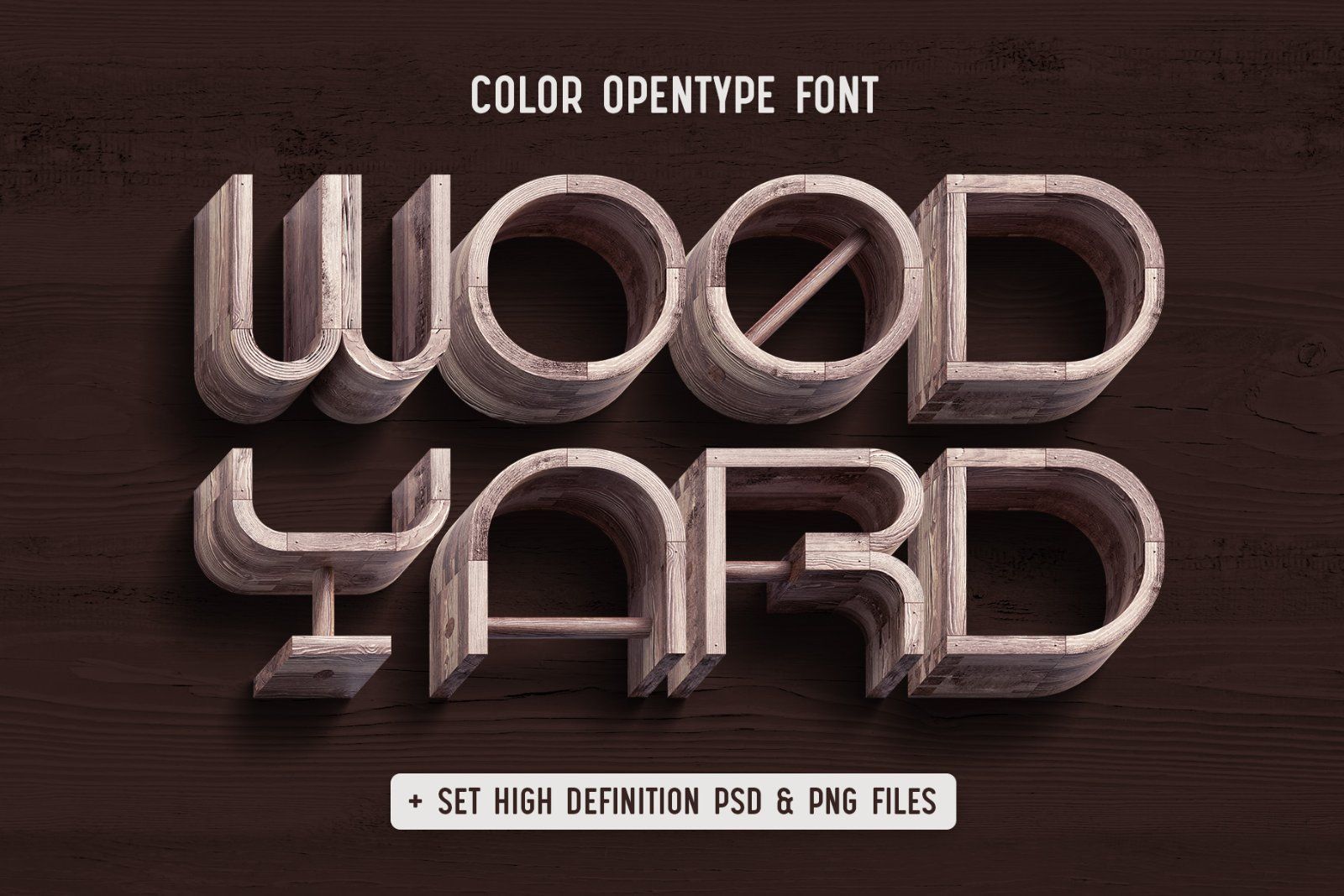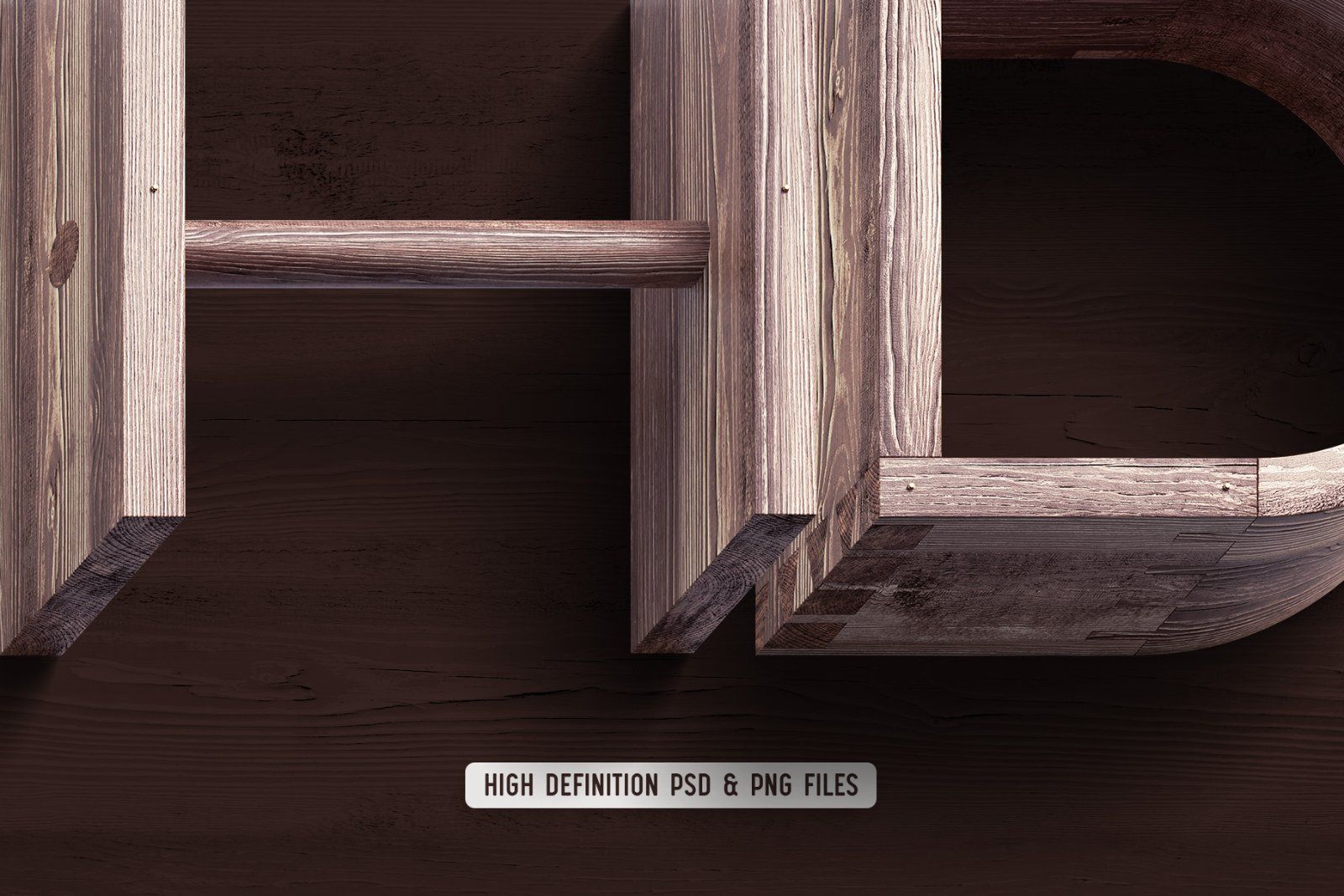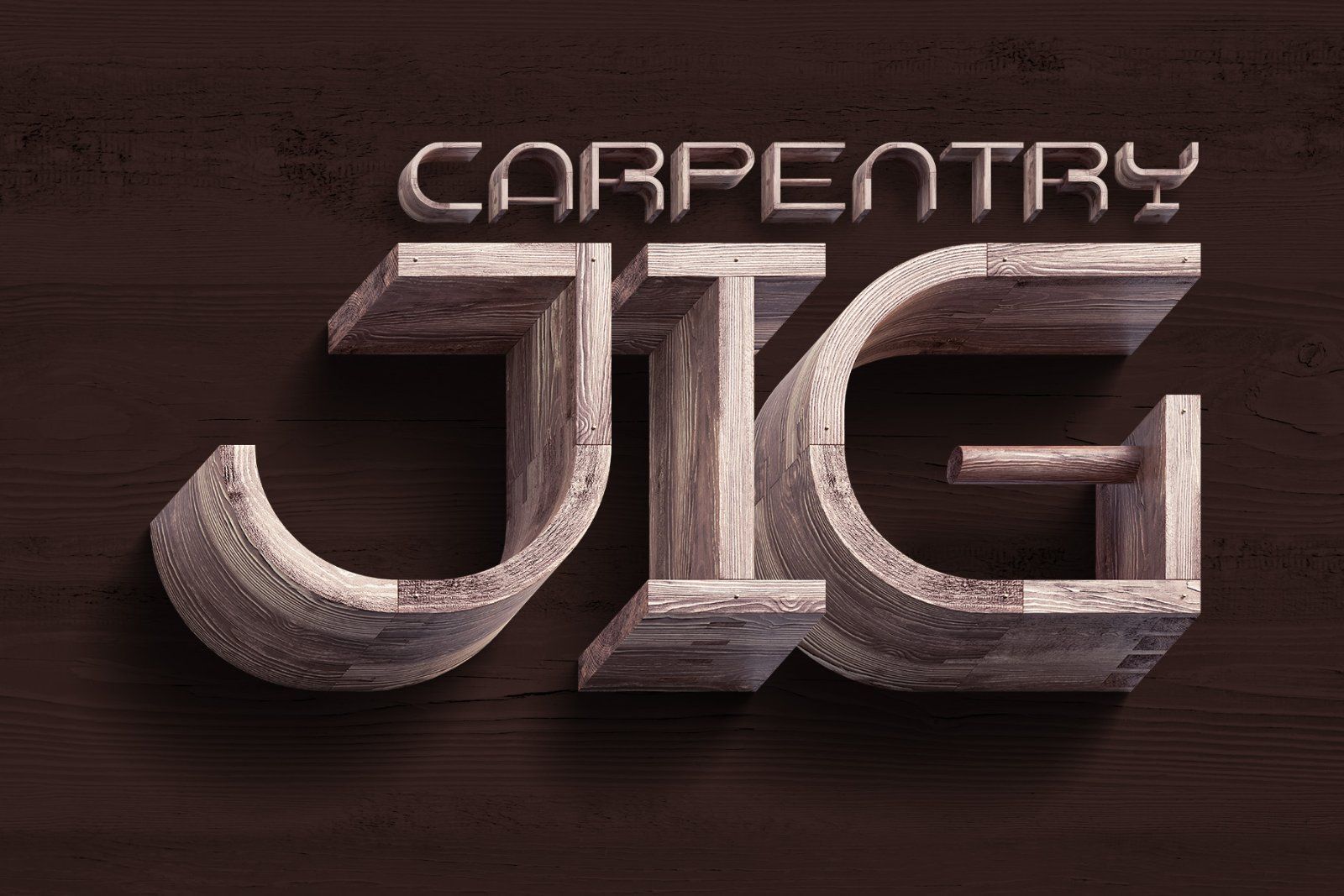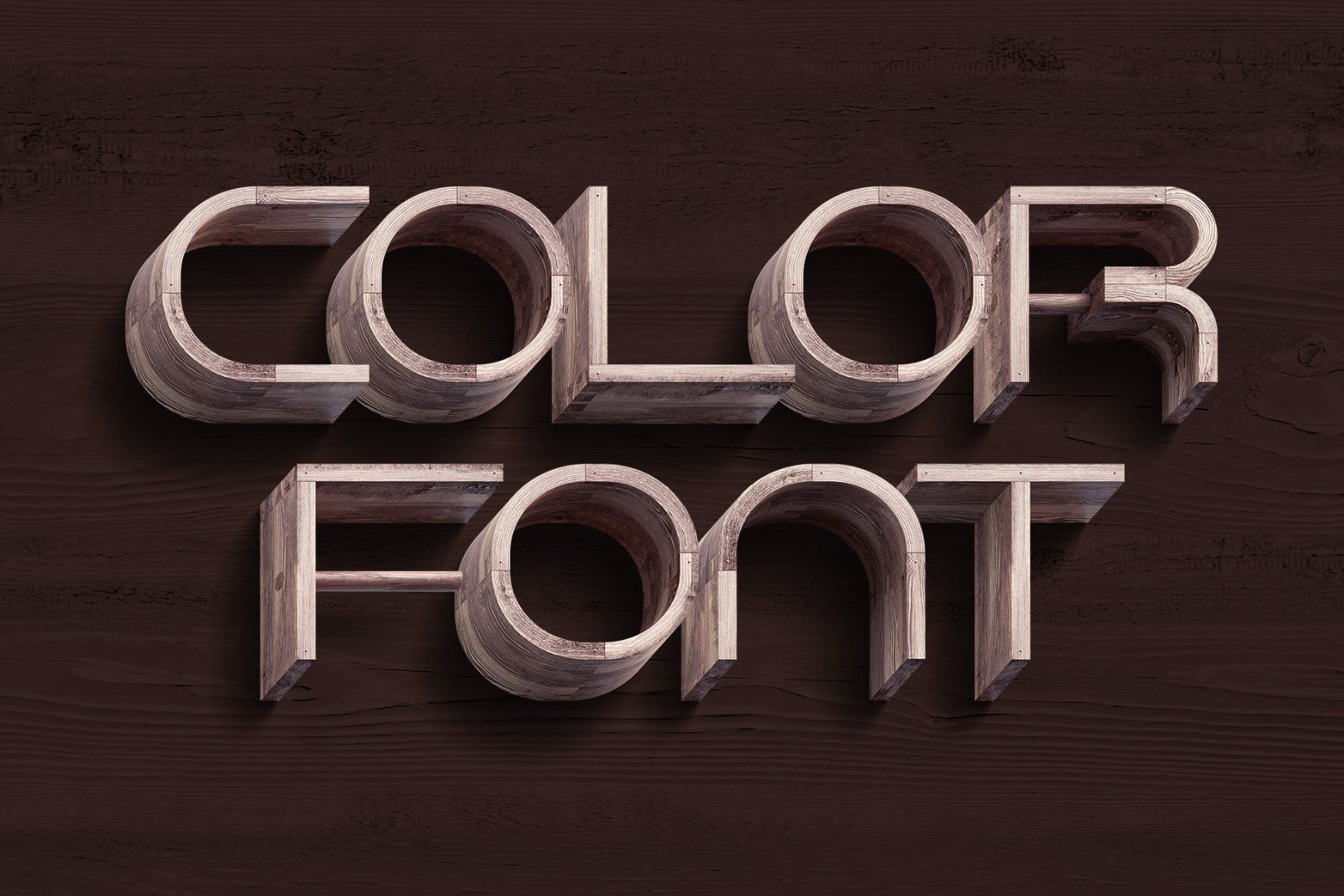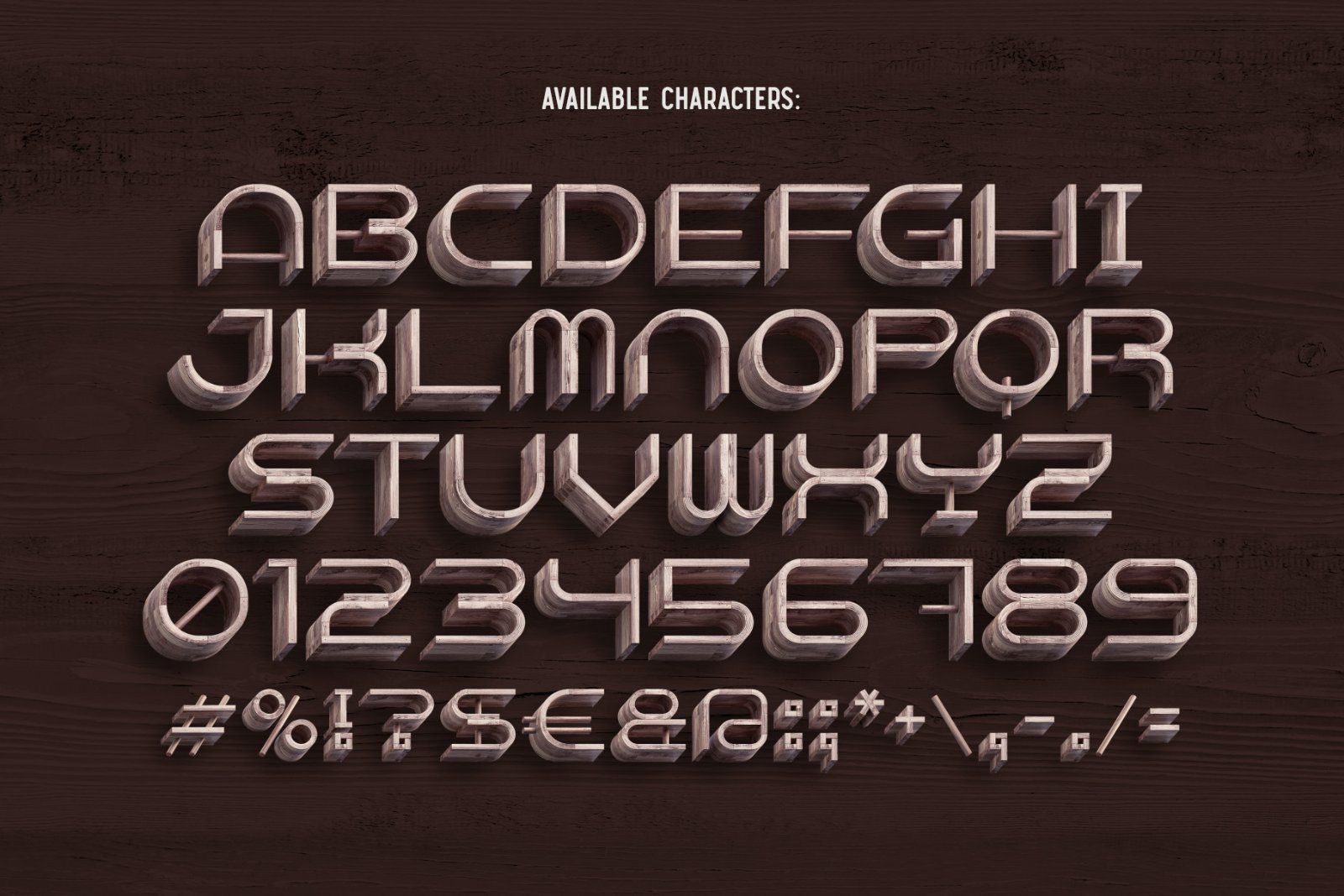
Hello! Presenting a sweet font set – Wood Yard. It's a 3d rendered high quality typeface made from textured wooden boards with original carpentry joints. First of all it's a color bitmap OpenType-SVG font that can be used as a usual OTF font. Also a set of full resolution PNG files with transparent background is included (Average resolution is 16 megapixels). Consider that only English language and basic punctuation is supported, please check out the screenshot with all available characters.